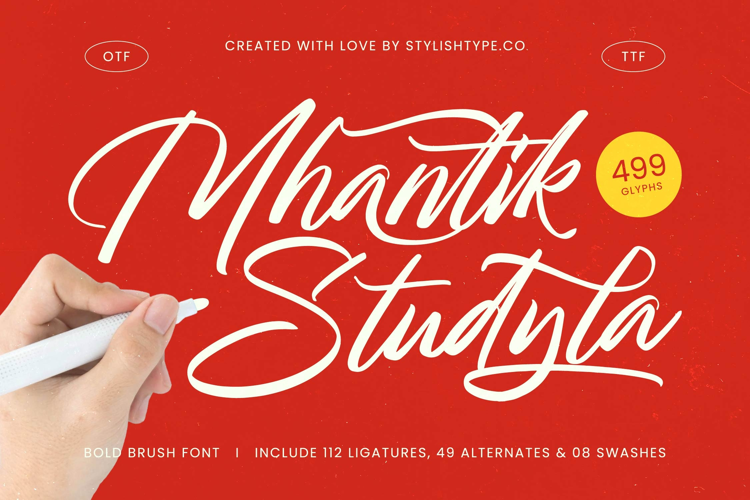
Mhantik Studyla - Bold Brush Font
Mhantik Studyla
Mhantik Studyla Italic
Unlock an unprecedented level of typographic customization. Offering a massive collection of 112 ligatures, 49 alternates, and 08 swashes, Mhantik Studyla - Bold Brush Font ensures every composition feels entirely unique and bespoke. These extensive features empower designers to craft signature wordmarks with smooth, flowing transitions, minimizing repetitive character pairings. This deep feature set guarantees high-end results, providing the flexibility needed to elevate any project from simple text to stunning, artisanal typography.